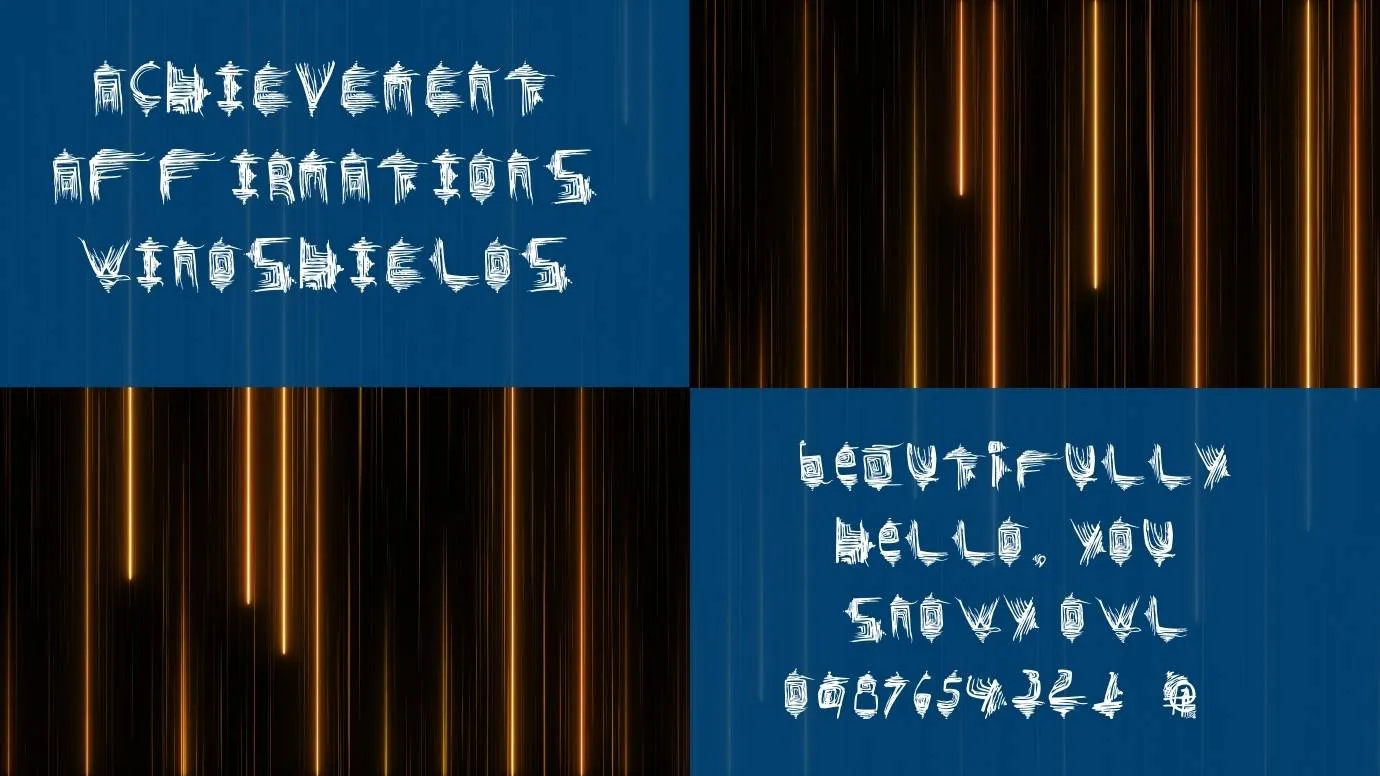
Glifos Font is a decorative typeface with a unique, geometric design. It was created by a Portugal base typeface designer. This typeface belongs to the Display family. Glifos typeface is available in two weights, Regular and Bold.
Glifos typeface has a complete set of characters, including all accented letters. It includes support for Latin, Cyrillic, and Greek character sets. This makes it perfect for multilingual projects. This typeface is perfect for headlines, logos, and other short pieces of text. Its bold shapes and strong lines make it stand out from other fonts.
Glifos typeface is a great choice for creative projects that need a bit of personality. Its geometric shapes and strong lines will help your work stand out from the crowd. So if you’re looking for a font that’s both unique and versatile, Glifos Font is a perfect choice.
Creator of Glifos Font
This awesome and stylish typeface is created by a Portugal base typeface designer Claudia Urbina in 2011.
This font style is created with a unique and consistent style. This single attractive style is a combination of various characteristics, including capital and small alphabets, numbers, symbols, special characters, punctuations, glyphs, and several language support.
| Name | Glifos Font |
| Style | Decorative |
| Designer | Claudia Urbina |
It can support up to 90 languages.
Is Glifos typeface Bad font?
No, it is not. It is a good font. It is good for posters, logos, and banners
Is Glifos Font a good website font?
Yes, Glifos typeface is an excellent website font. Its unique design and wide range of styles make it perfect for any project.
Can I use Glifos Font in a logo?
Yes, you can use Glifos typeface in a logo. Its unique design and wide range of styles make it perfect for any project.